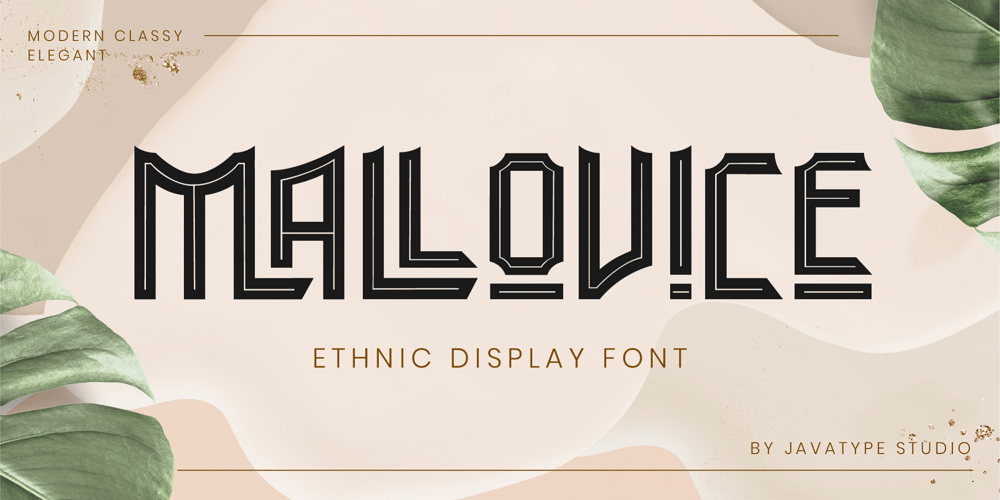
Mallovice Font Family was designed by Tio Yulianto and published by Javatypestd. Mallovice contains 1 styles and family package options. Mallovice a ethnic display font is a font made with a unique, strong ethnic character so that users can feel different characteristicsMallovice would be perfect for photography, watermark, social media posts, quotes, cover book, tshirt, branding, logos & branding, invitation, product designs, label, stationery, product packaging, special events or anything that need handwriting taste.What’s Included :- Web Font- Standard glyphs- Ligature and Stylish Set- Works on PC & Mac- Simple installations- Accessible in Adobe Illustrator, Adobe Photoshop, Adobe InDesign, even work on Microsoft Word.- PUA Encoded Characters – Fully accessible without additional design software.- Fonts include multilingual supportThank you for your purchase!Hope you enjoy our font!